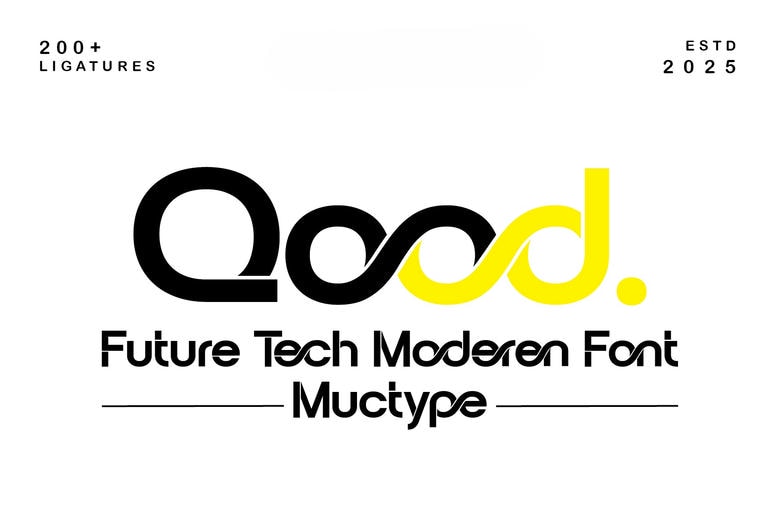
Qood Font
Qood is futuristic sporty display font that is suitable in bold, dynamic and modern design. Its edgy looks together with perfect clarity and angles also make it a good-looking, vibrant image ideal to brand sports, eSports, posters, jerseys, and team logos.
There are over 200 distinct ligatures and Qoob features a full character set with uppercase, lower case, digits, symbols, and punctuation, as well as multilingual support which means unlimited creativity. It is a font constructed to give your designs clean professional flare.